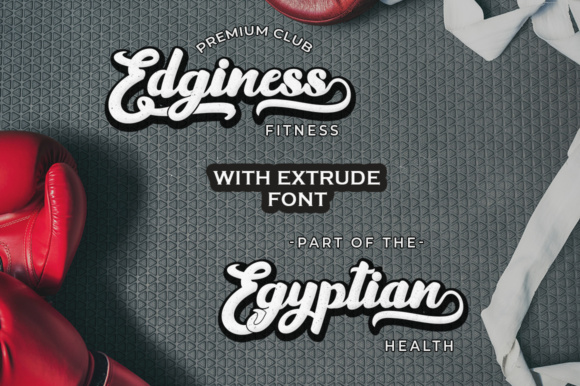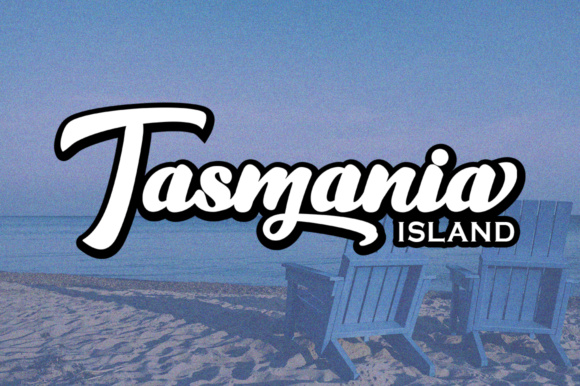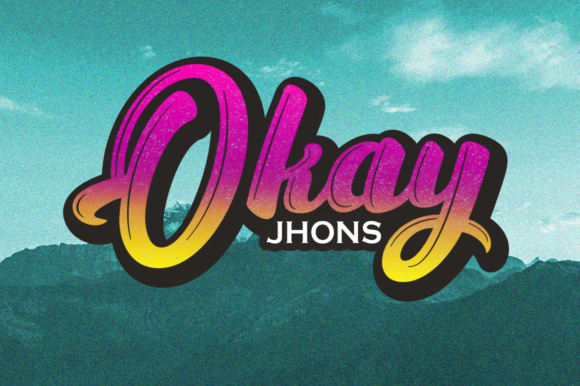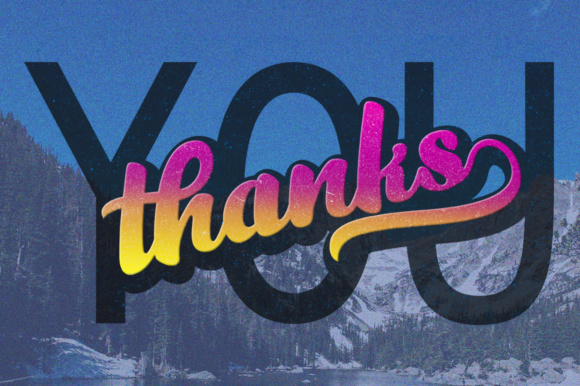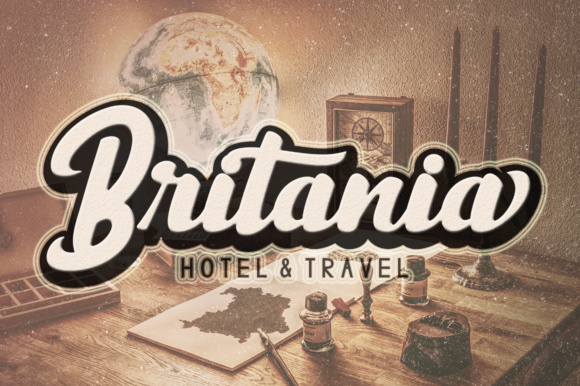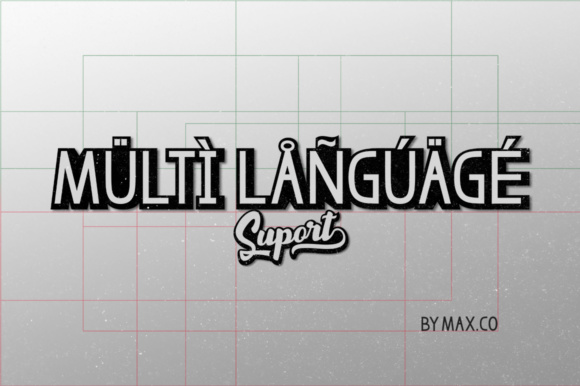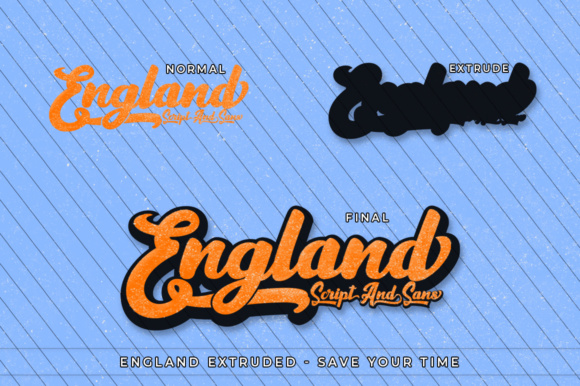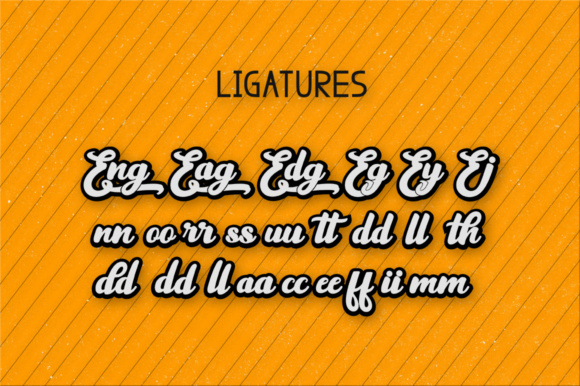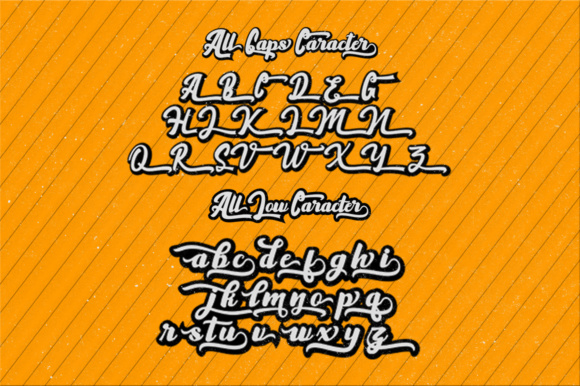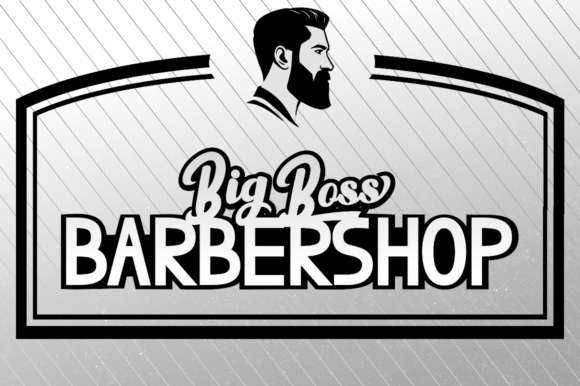
England Script Font
About England Script Font
England is a striking typeface that comes in 4 variations. It can be used for various purposes such as logos, wedding invitations, t-shirts, letterheads, signage, news, posters, badges, and much more!